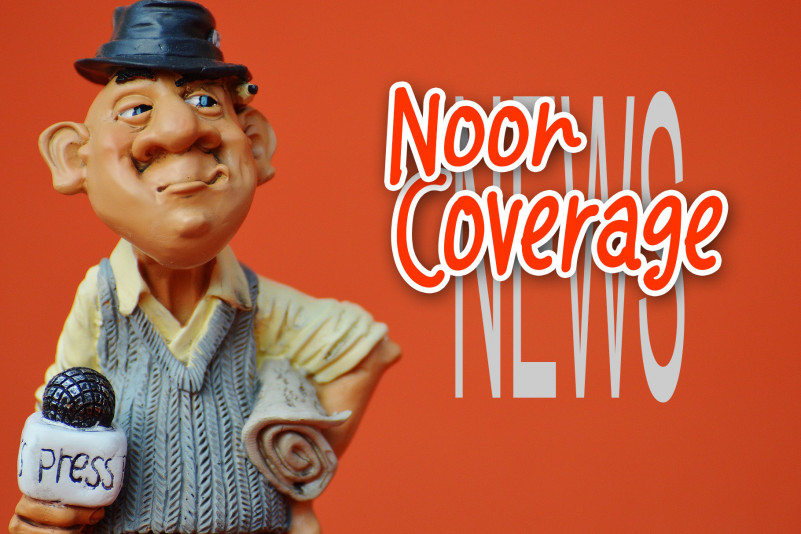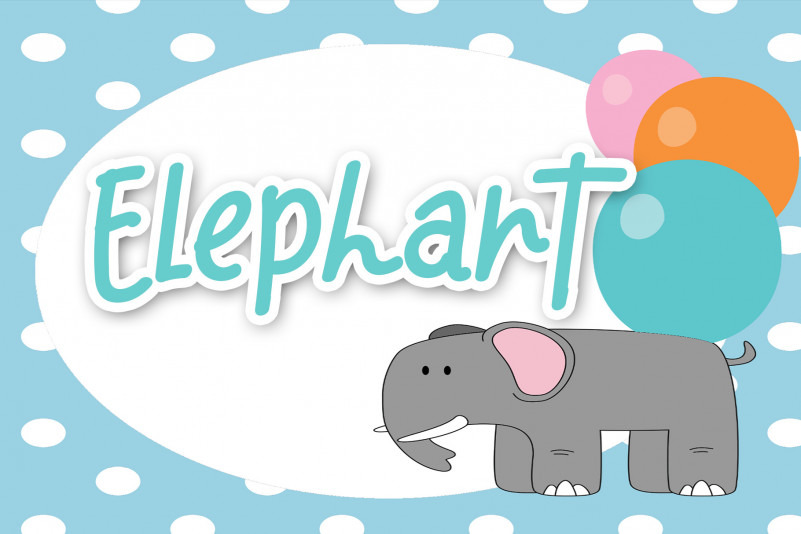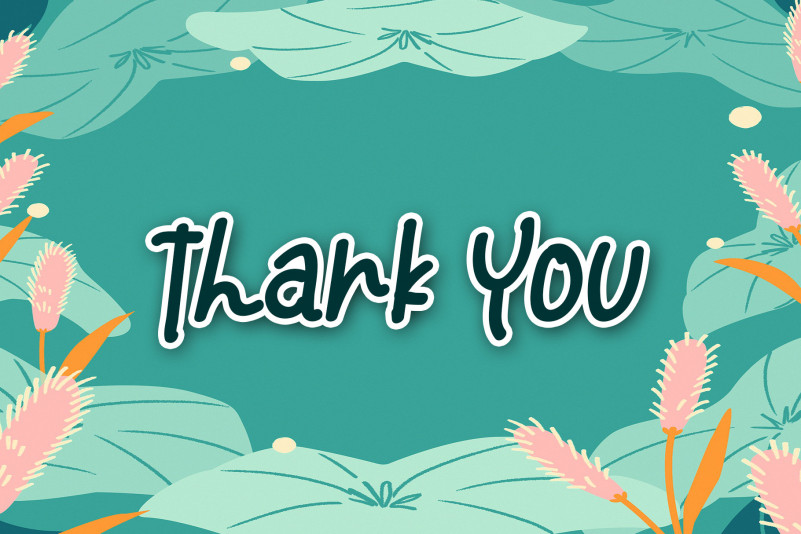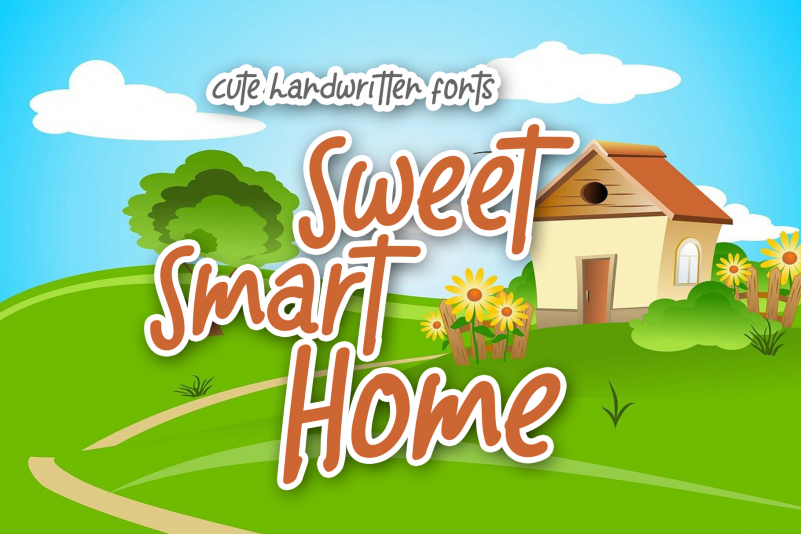
Sweet Smart Home Display Font
Sweet Smart Home Display Font is a great. It maintains its classy calligraphic influences while feeling contemporary and fresh. This versatility will appeal to a wide range of crafty ideas, from letterheads and titles to stationery.